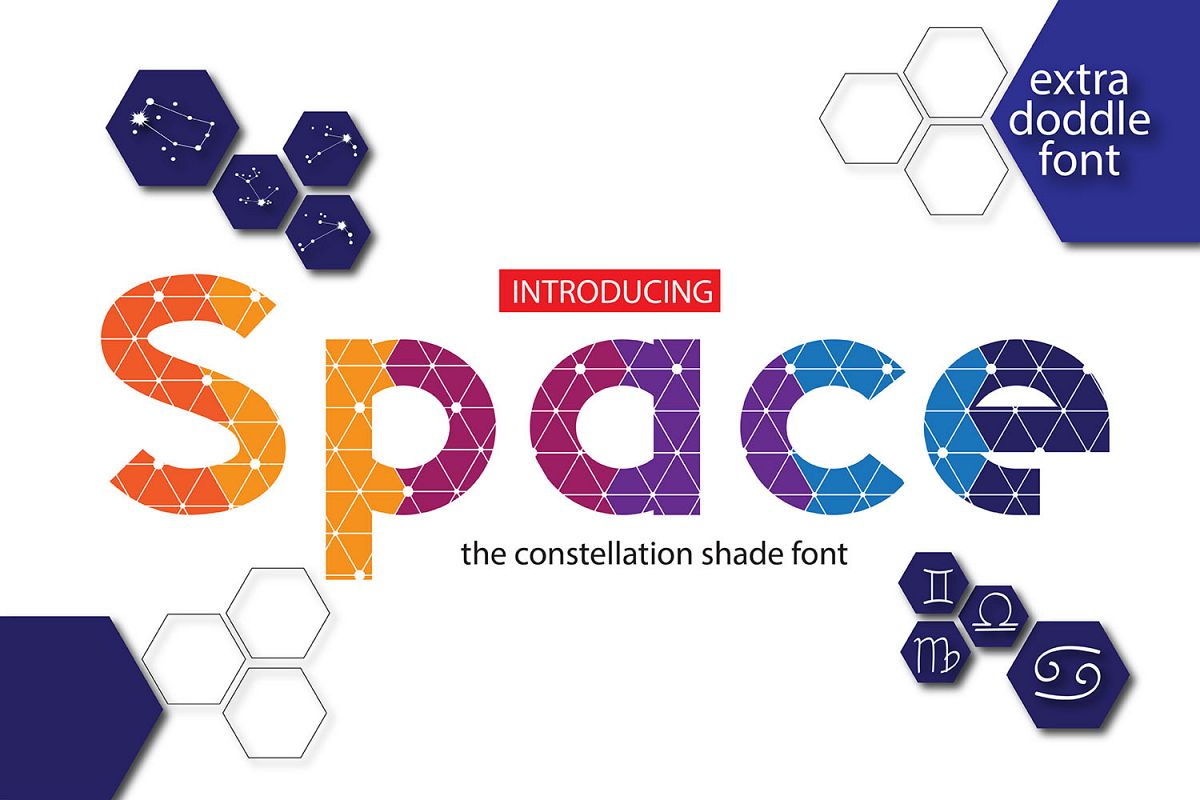
Space
Space bonus
Space
Space Font : its a unique san
font, this font is structured from the elements that make up the hexagon
pattern. These elements become part of the font hatch with space nuence, so I also give a
bonus font in the form of symbols and constellations for the zodiac.
S
pace font is formed from the elements, so this font is also suitable made as a logo, to
make it as a logo is very easy. Just do a combination of letters and live
modify the font-shaped fields, you can move, or remove. Patching, scalling in or out.
The fields that
make up the font are created with a closed polygon line, so you can extrude if you want a 3D
shape. To extrude of course you need 3d software.
The surprise is
after you type the text, then convert it to curve on corel draw, or expan on adobe
illustrator, then do round edge or round corner, or if you use adobe
illustrator application with round corner style effect. Then see that your font
changed its style. You will see glitter flickering in the text. This is very
fun.
Font space is also
suitable used as magazine covers, product branding, and support your wide graphic creativity.
The strongbold glyph containing A-Z Uppercase, a-z Lowercase, numeric and punctuation, and multilangual support,  please message me if you are ensure of any language support.
The space also come with doodle font.